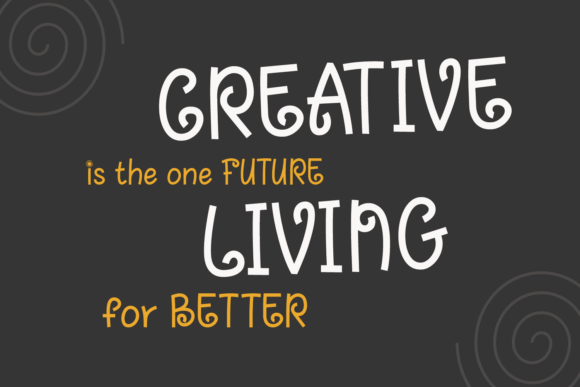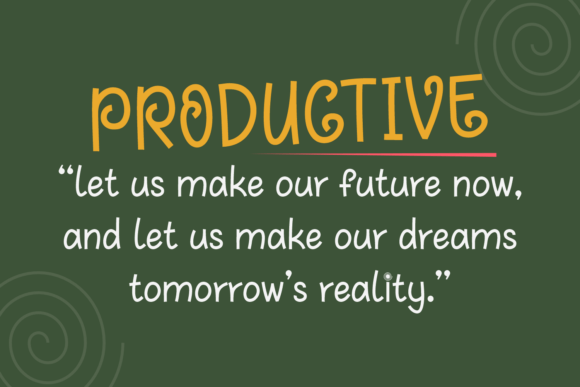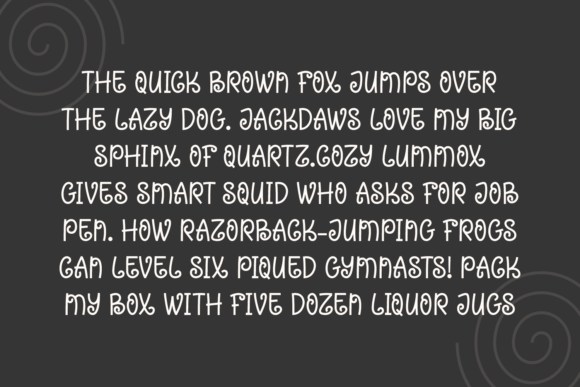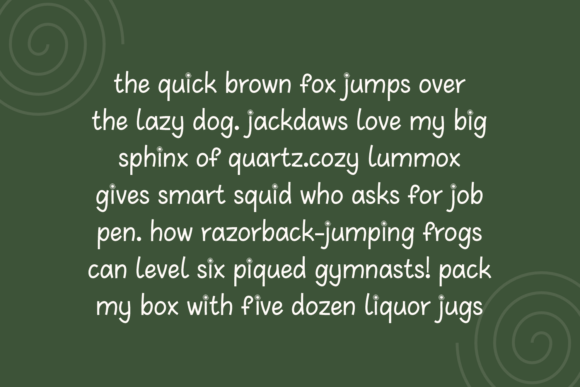
Introducing Eskul Jokes Font: Adding Whimsy and Creative Flair to Your Work
In the world of design, fonts play a crucial role in conveying the tone and personality of a brand or creative project. If you’re looking for a typeface that can add a touch of whimsy and creative flair to your work, look no further than Eskul Jokes Font. This playful handwritten font is designed to spark joy and bring a sense of fun to your visual identity.
Clean Monolinear Stroke for Excellent Legibility
One of the standout features of Eskul Jokes Font is its clean monolinear stroke. This design element ensures excellent legibility, making it perfect for use in a variety of applications, from posters and branding to children’s book titles and social media content. The monolinear stroke also gives the font a modern and sleek feel, while maintaining a hand-drawn, artisanal quality that sets it apart from more traditional typefaces.
A Hand-Drawn, Artisanal Feel
Eskul Jokes Font is a truly unique typeface that combines the benefits of digital design with the charm of hand-drawn lettering. The font’s artisanal feel makes it perfect for designers and crafters who want to add a personal touch to their work. Whether you’re creating a poster for a creative workshop, designing a brand identity for a youth-oriented business, or crafting a children’s book, Eskul Jokes Font is an excellent choice.
Eskul Jokes Font is an extraordinary choice for a wide range of creative projects. Here are just a few ideas to get you started:
- Creative workshop posters: Add a touch of whimsy and fun to your workshop posters with Eskul Jokes Font. Its playful design is sure to grab attention and entice people to learn more.
- Youth-oriented branding: Eskul Jokes Font is perfect for businesses that cater to a young audience. Its fun and energetic design will help you connect with your target market and establish a strong brand identity.
- Children’s book titles: Bring your children’s book to life with Eskul Jokes Font. Its playful design and excellent legibility make it an excellent choice for titles and headings.
- High-energy social media content: Add a splash of fun and personality to your social media content with Eskul Jokes Font. Its creative design is sure to help you stand out in a crowded online space.
Professional Craftsmanship and Infectious Fun
Eskul Jokes Font delivers a sense of professional craftsmanship and infectious, legendary fun to your visual identity. Its unique design ensures that your headlines will stand out with a signature smile, making it perfect for designers and crafters who want to make a lasting impression. Whether you’re creating a brand identity, designing a poster, or crafting a children’s book, Eskul Jokes Font is an excellent choice.
Tips for Using Eskul Jokes Font
Here are a few tips for getting the most out of Eskul Jokes Font:
- Use it sparingly: Eskul Jokes Font is a bold and playful typeface, so use it sparingly to add emphasis and visual interest to your design.
- Pair it with a neutral font: Eskul Jokes Font is a statement typeface, so pair it with a neutral font to create a balanced design.
- Experiment with colors: Eskul Jokes Font looks great in a variety of colors, so don’t be afraid to experiment and find the perfect hue for your design.
Eskul Jokes Font is a unique and playful typeface that can add a touch of whimsy and creative flair to your work. Its clean monolinear stroke ensures excellent legibility, while its hand-drawn, artisanal feel makes it perfect for designers and crafters who want to add a personal touch to their projects. Whether you’re creating a poster, designing a brand identity, or crafting a children’s book, Eskul Jokes Font is an excellent choice. So why not give it a try and see how it can bring a sense of fun and personality to your visual identity?